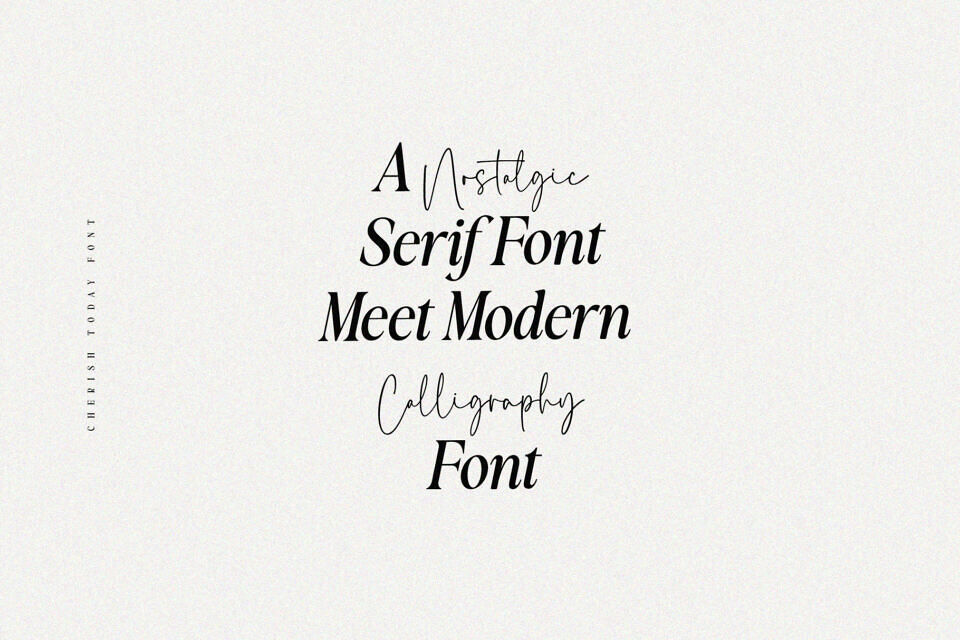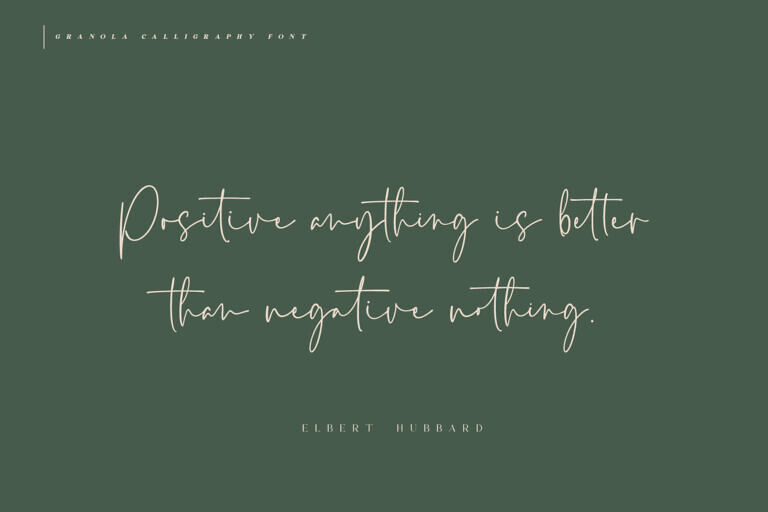
Cherish Today is nostalgic serif font which has a classy feel. This font is suitable for a wide variety of needs in both modern and classic themes. You will also get free granola modern calligraphy, so you can easily mix and match.
Granola is a modern calligraphy font with modern and lovely style of script font. This font comes with more than 50 ligatures and more than 20 alternates, so you will find it very easy to mix and match this font in your projects. This font will be very suitable for branding, logo design, magazines, posters, invitations and much more.